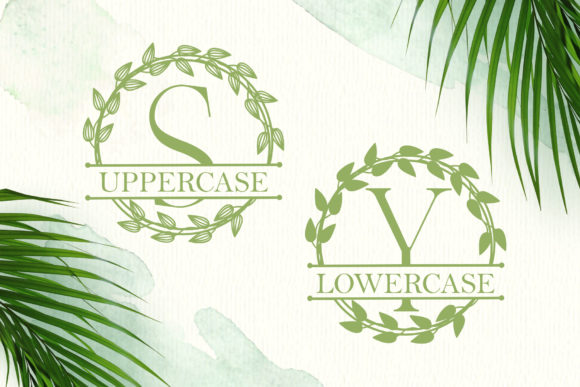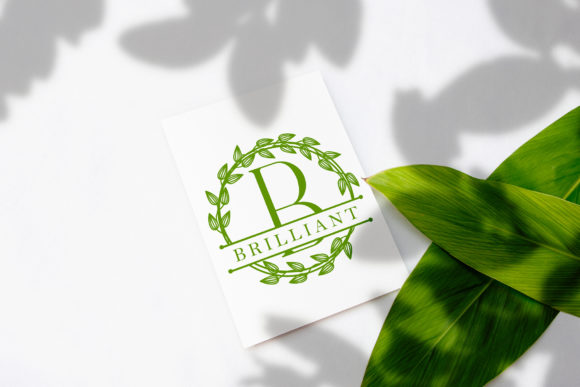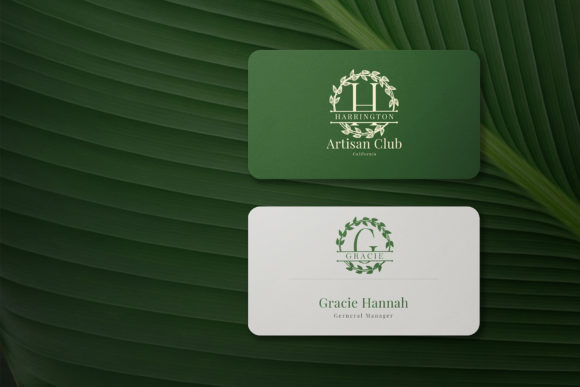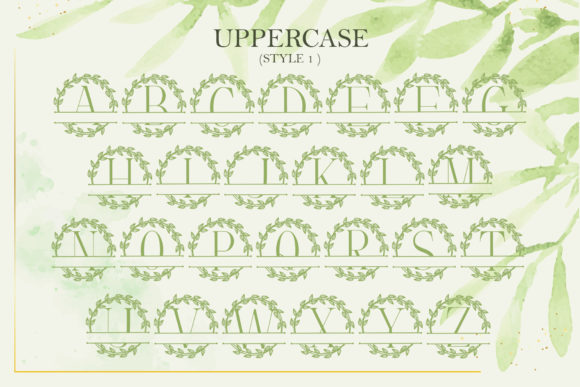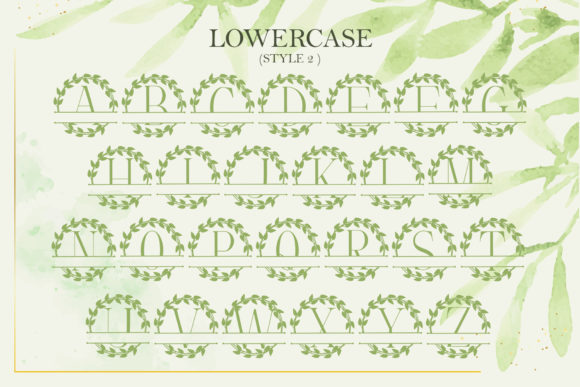
Introduction to Monogram Gorgeous Font
Do you remember the feeling of excitement when you’re about to start a new creative project? The blank canvas, the endless possibilities, and the thrill of bringing your ideas to life? For designers, this moment is a constant source of inspiration, and the right font can make all the difference. That’s where the Monogram Gorgeous Font comes in – a stunning and elegant font that will add a touch of sophistication to your designs.
Whether you’re working on a special occasion, a business design, or a wedding card, the Monogram Gorgeous Font is the perfect addition to your design resource. Its high-quality design and transparent background make it a versatile choice for any project, and with a free download available, you can start experimenting right away.
- High-quality design resource ideal for creative projects, offering a unique touch to any visual content.
- Monogram Gorgeous Font features a transparent background, making it perfect for use on any background color or image.
- Unique monogram design, perfect for creating personalized and elegant typography for wedding invitations, branding materials, and other creative projects.
Honest Review: Monogram Gorgeous Font
As a designer, I’m always on the lookout for high-quality design resources to elevate my creative projects. The Monogram Gorgeous Font is one such find that caught my attention. Here’s my honest review.
- ✨ High-quality design with intricate details, making it perfect for wedding invitations, social media graphics, and other creative projects.
- ✨ Offers a range of customization options, including font sizes, colors, and styles, giving users the flexibility to tailor the design to their needs.
- ⚠️ The font is not ideal for text-heavy designs due to its ornate nature, which can make it difficult to read.
- ⚠️ The transparent background may not work well with all design elements, requiring users to adjust the design accordingly.
Overall, I’m impressed with the Monogram Gorgeous Font’s potential for adding a touch of elegance to creative projects. While it may have some limitations, its high-quality design and customization options make it a valuable addition to any design resource library.
For the best results, use Monogram Gorgeous Font with a transparent background to create a clean and elegant design. You can also experiment with different font sizes and colors to add depth and interest to your project.
Monogram Gorgeous Font is perfect for creating beautiful monograms, logos, and other design elements for weddings, special occasions, or corporate events. You can also use it to add a touch of elegance to your blog, social media, or website.